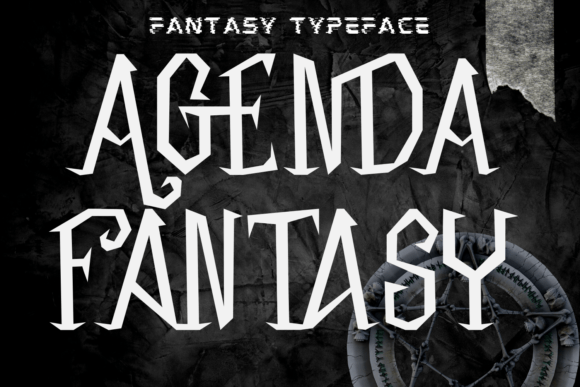
Journey into the mystical realm of Agenda Fantasy Font, a captivating serif typeface born from the depths of imagination. This font dances like a ghost, its characters twirling and swirling like spirits in the moonlight. Crafted with the essence of Halloween, Agenda Fantasy Font exudes an eerie charm that will leave you spellbound.
Unleash your creativity and conjure designs that feel like they've been plucked straight from a haunted tale. Use Agenda Fantasy Font to craft logos that whisper secrets and branding that evokes the feeling of walking through a foggy graveyard on a crisp October night. Design posters that transport viewers to a world of gothic wonder, where mythical creatures lurk beneath the shadows.
With Agenda Fantasy Font, transform your designs into enchanting works of art. Craft invitations that beckon recipients to a Halloween soirée filled with mystery and intrigue. Create flyers that announce Halloween events, promising an unforgettable night of thrills and chills. Design social media posts that grab attention and leave followers spellbound.
Whether you're a seasoned designer or just starting your creative journey, Agenda Fantasy Font is the perfect tool to bring your Halloween-inspired visions to life. Its versatility extends beyond Halloween, making it a haunting choice for gothic designs, hardcore music, and fantasy creations. Imagine movie posters with titles that leap off the screen, album covers that transport listeners to otherworldly realms, and book covers that hint at tales untold.
Every touch of Agenda Fantasy Font adds a touch of magic to your designs. Its intricate details, from the delicate strokes to the sweeping curves, create a visual symphony that captivates the eye and sparks the imagination. This font is more than just a collection of letters; it's a gateway to a world where the ordinary becomes extraordinary.
Experience the enchanting power of Agenda Fantasy Font today and transform your designs into spellbinding masterpieces. Dive into the realm of imagination and let your creativity run wild. With Agenda Fantasy Font, the possibilities are endless.